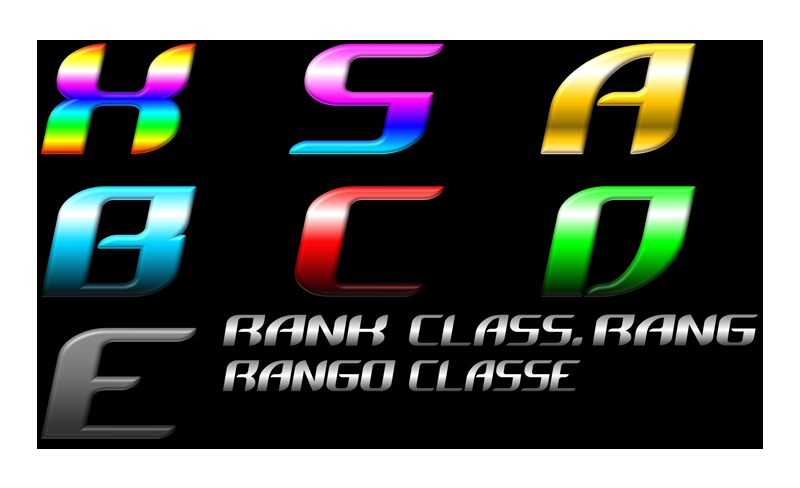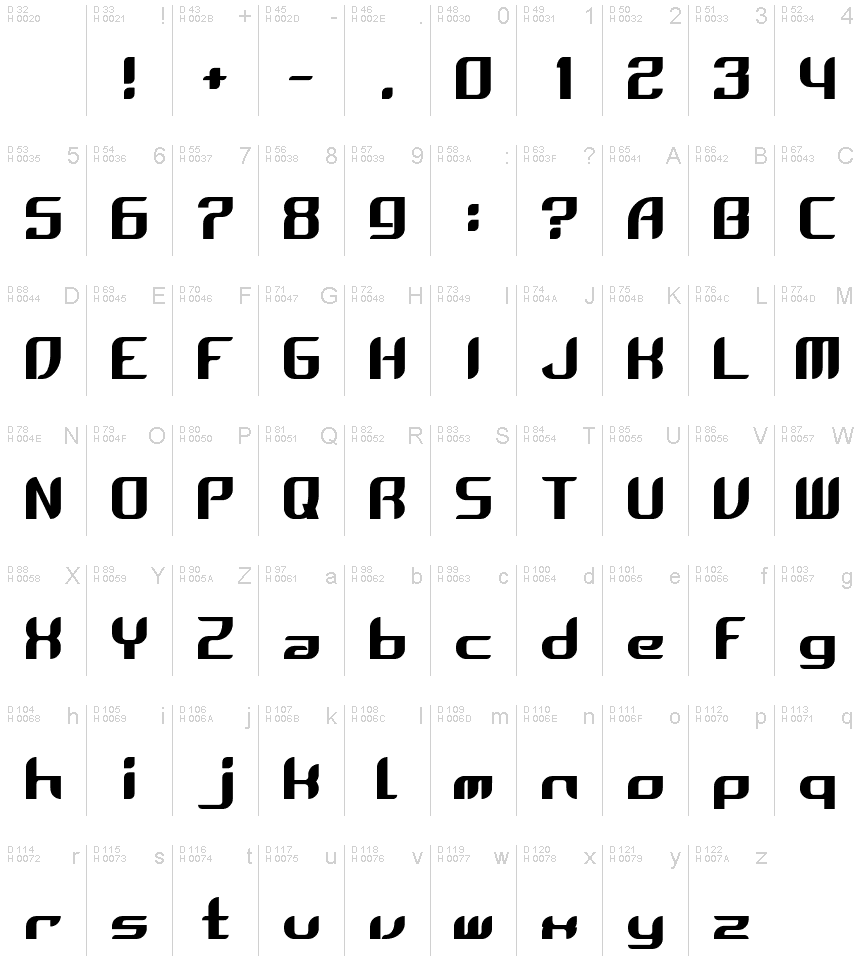
Zero G
Zero G font is a retro techno typeface designed by Brendan Wood.
This is a font based off of Sonic Riders Zero Gravity the example is based on assest from the original Sonic Riders